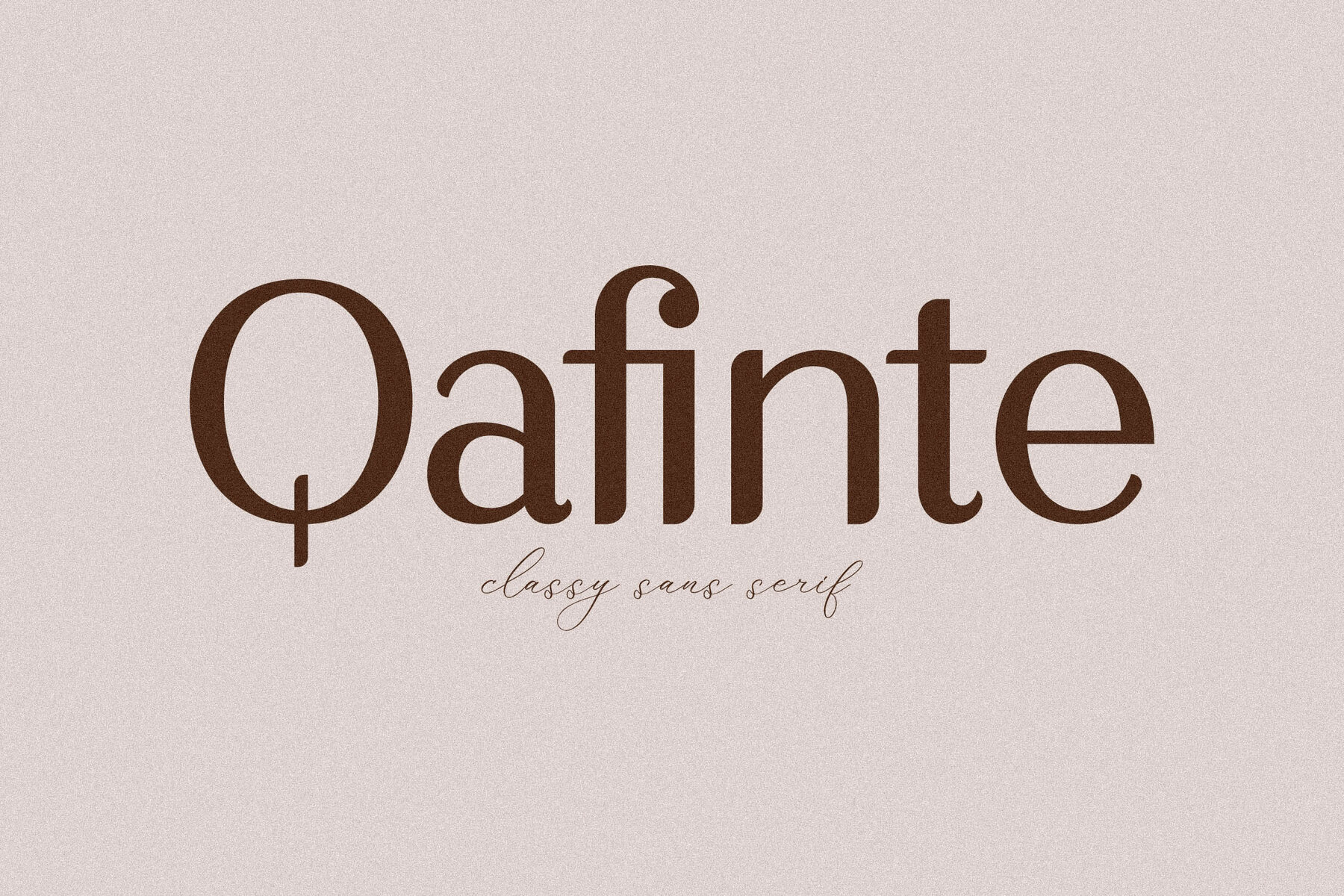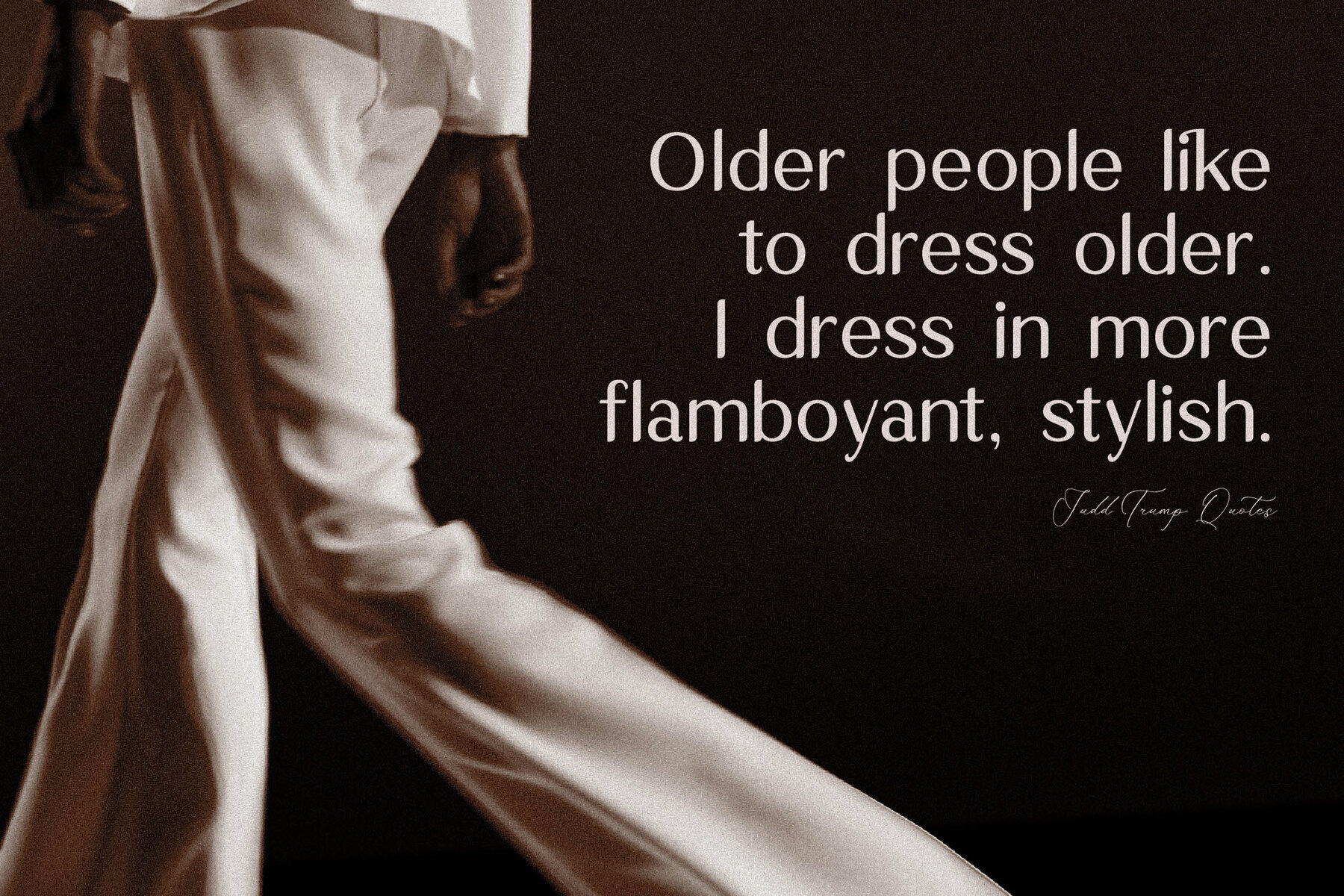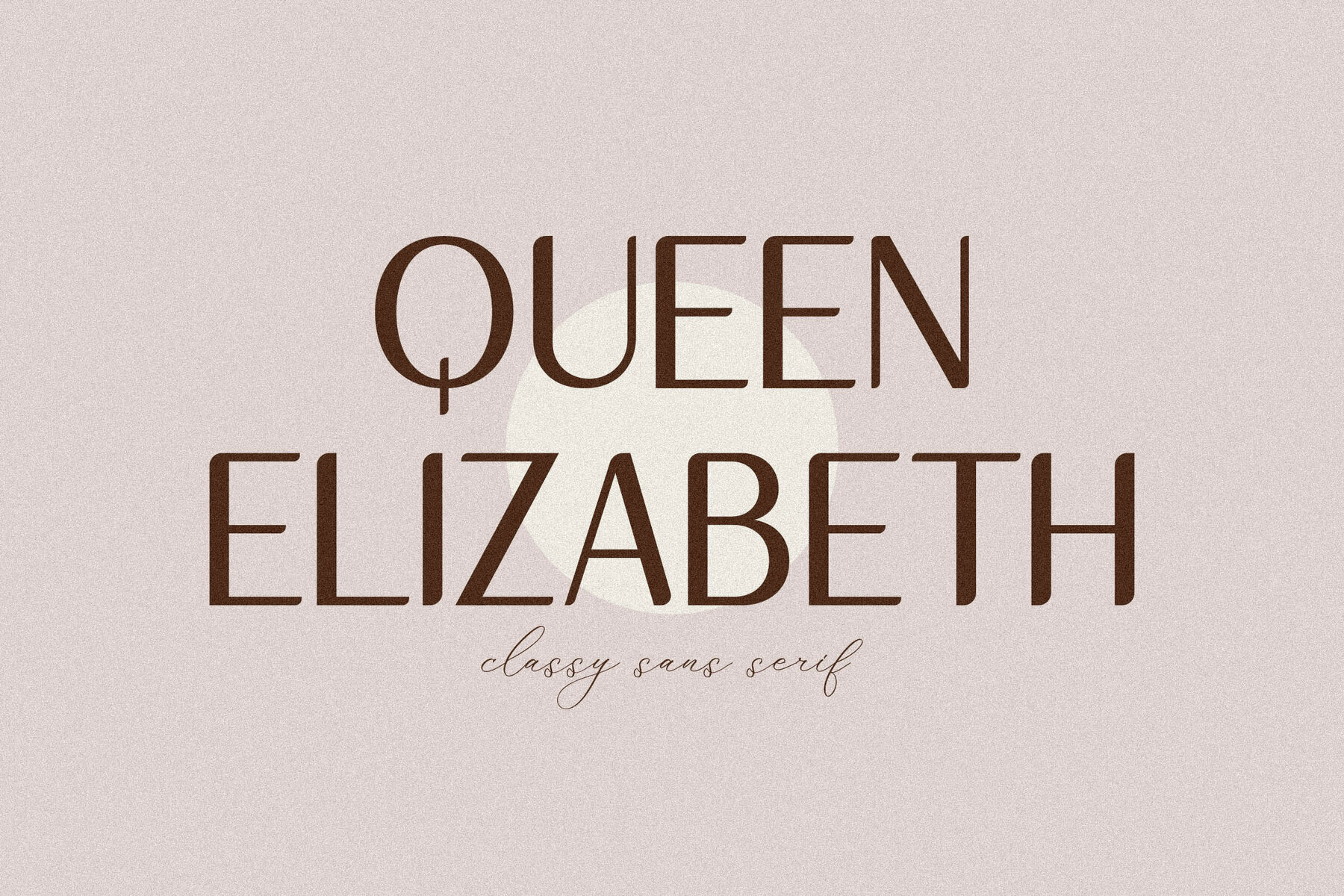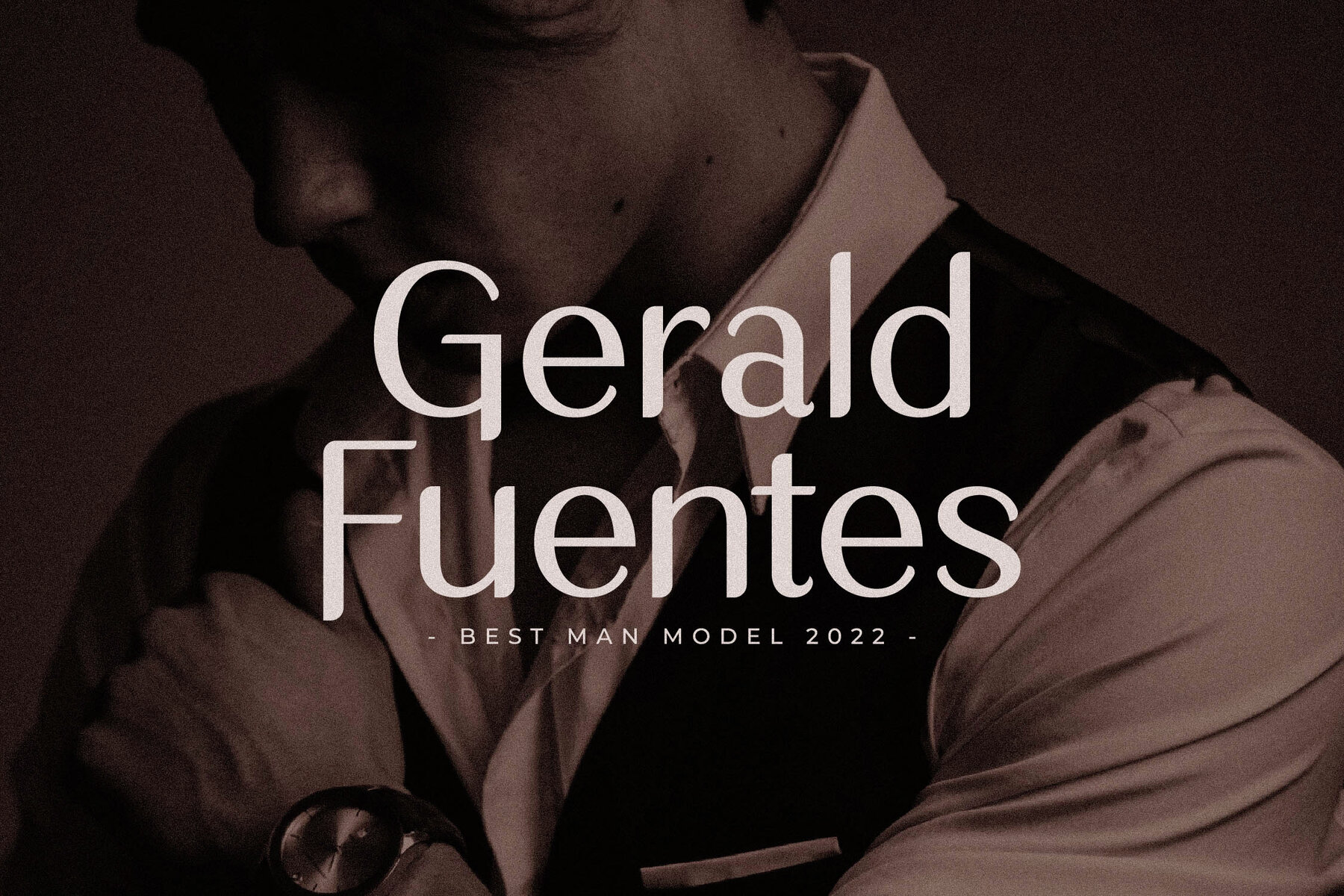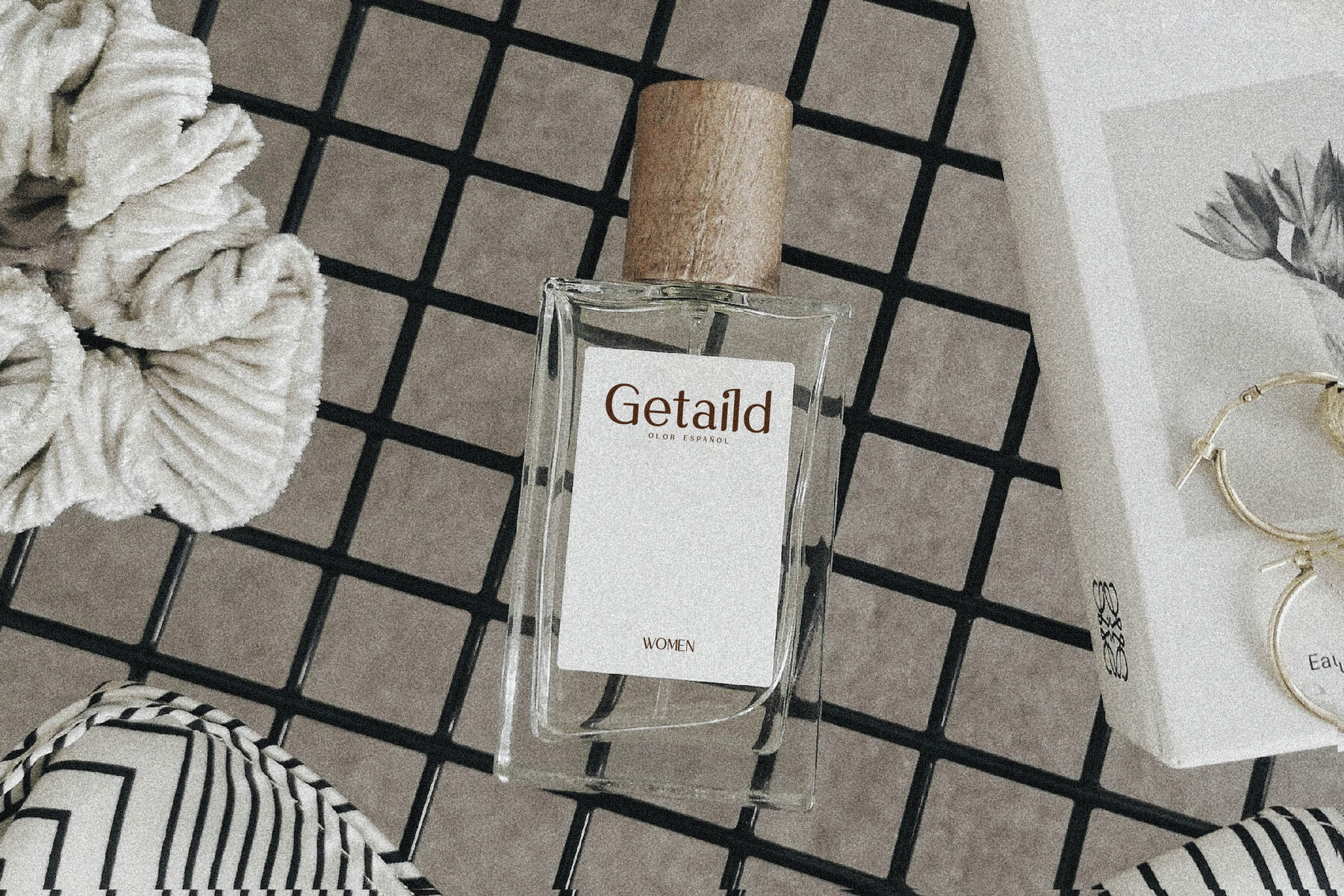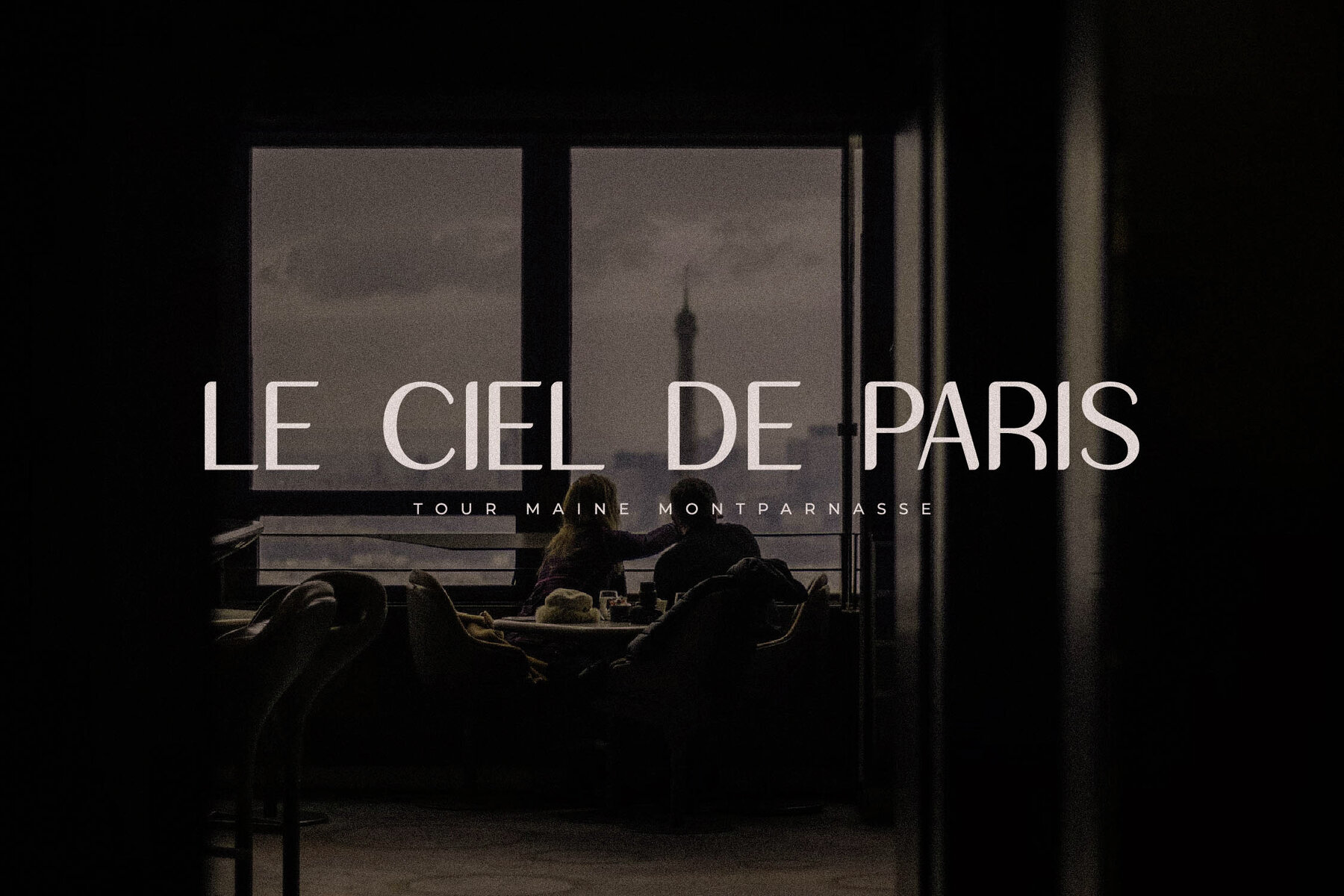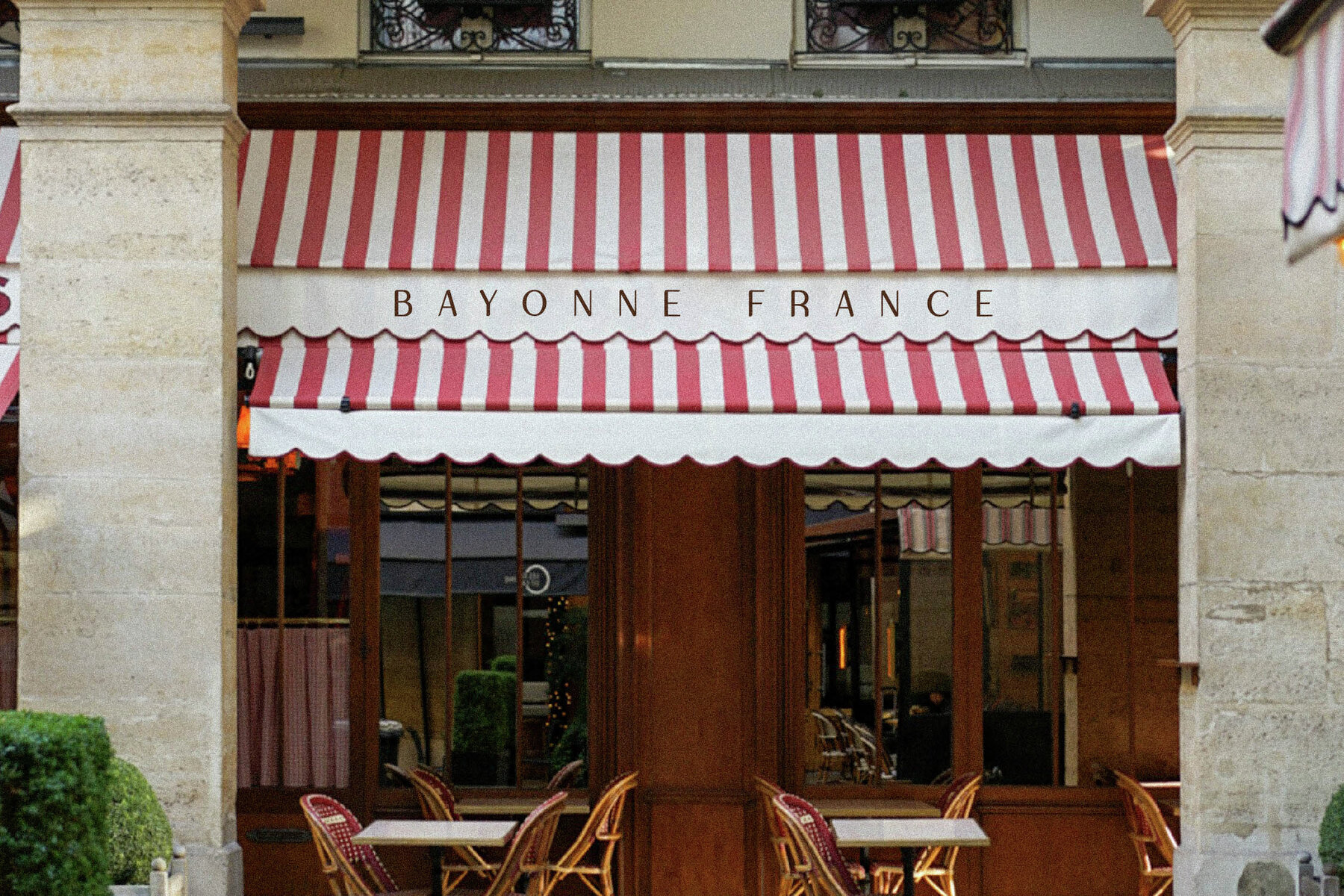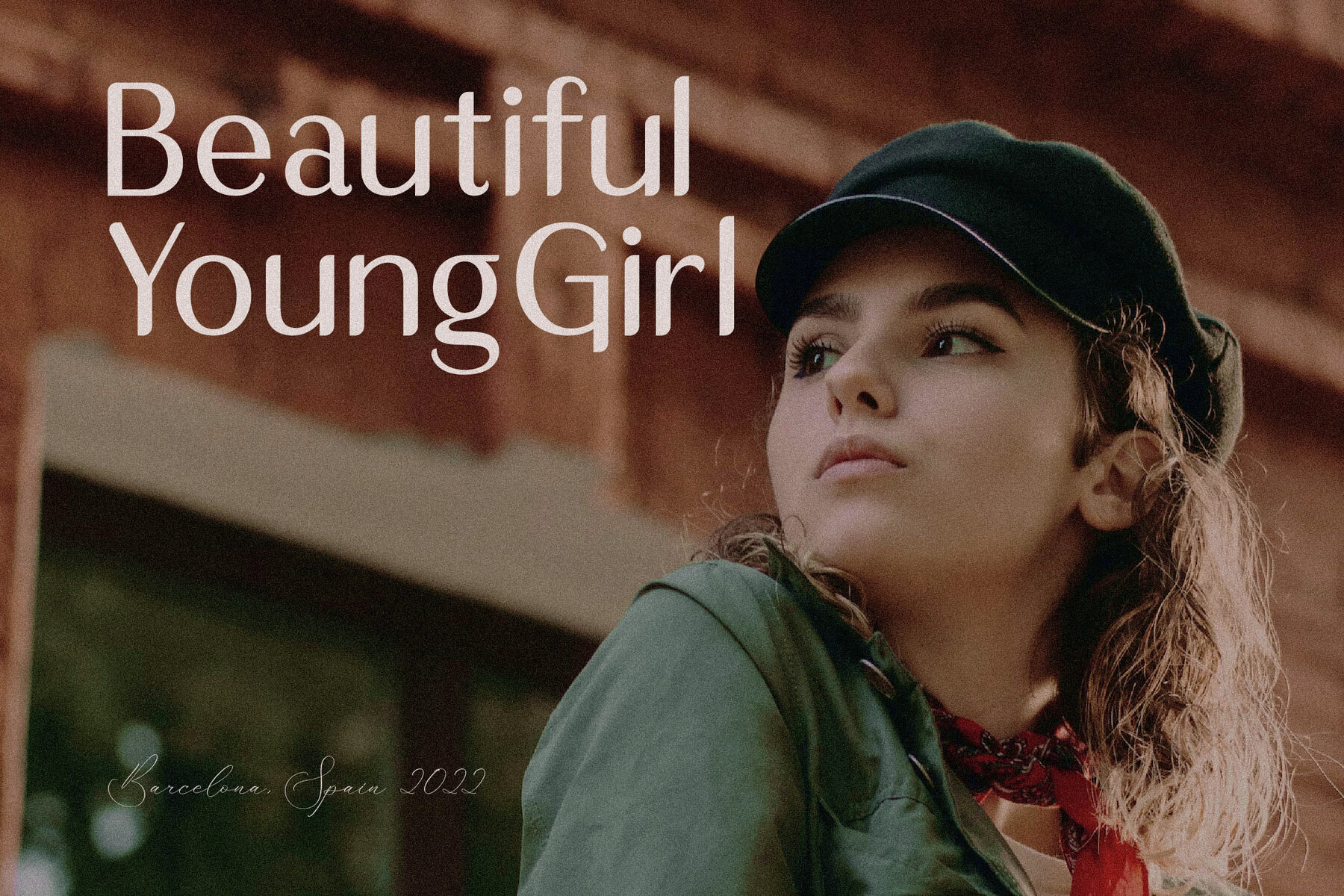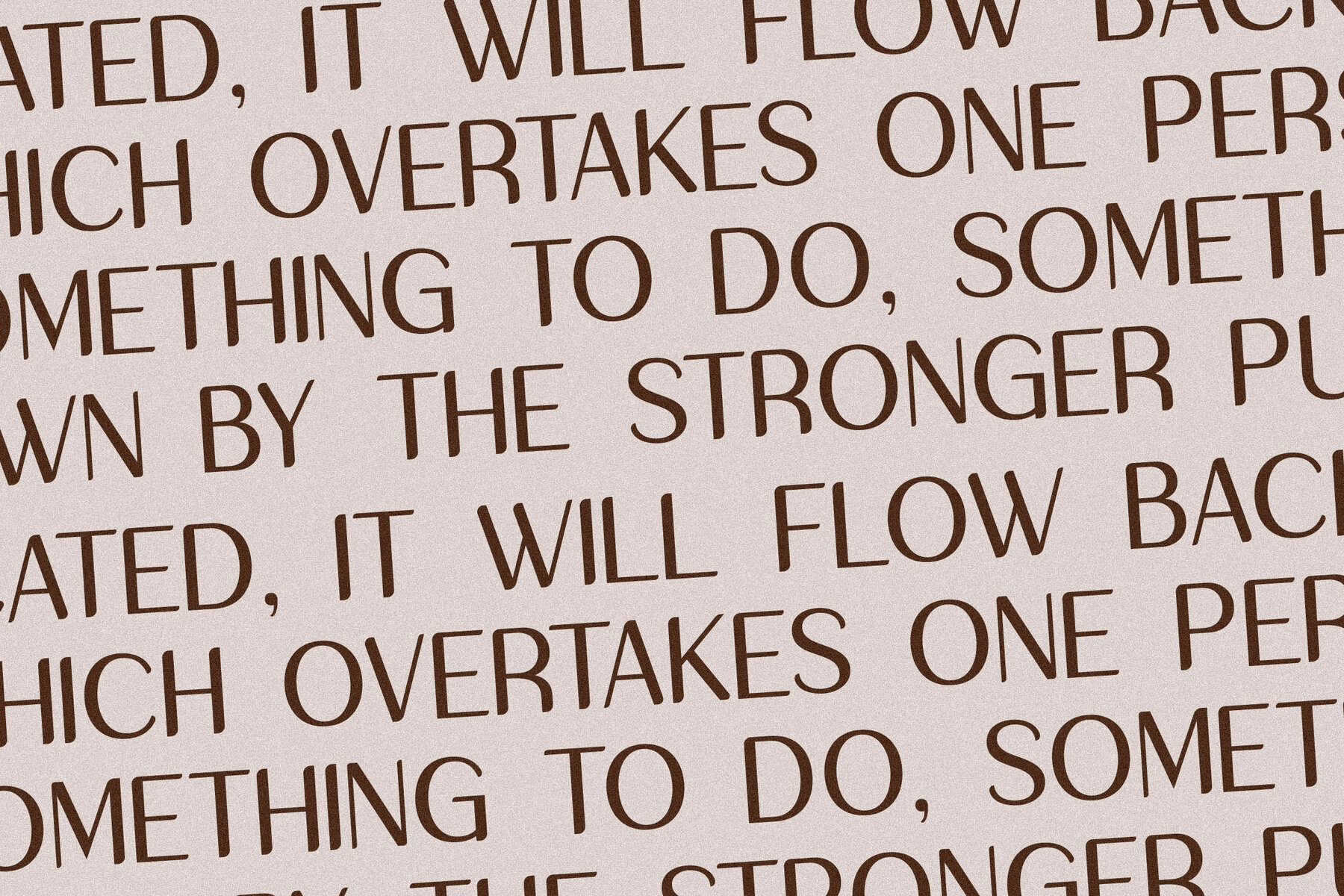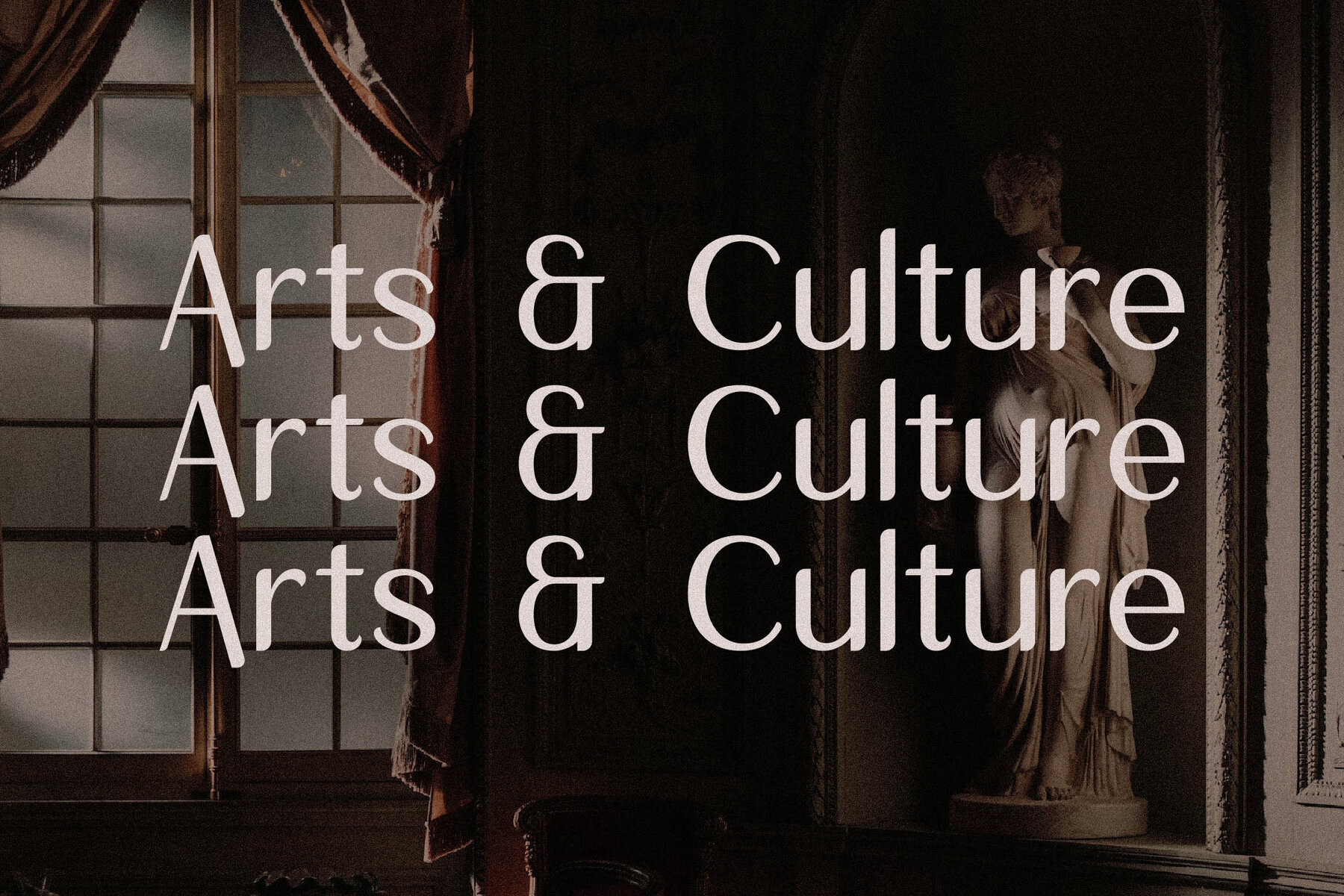
Qafinte Font
Introducing Qafinte Typeface, an exquisite serif font crafted by Storytype Studio. With its unique blend of modern and classic aesthetics, Qafinte is your ideal choice for creating luxurious logos, captivating book and movie titles, and stylish fashion branding. It also excels in editorial layouts for magazines, apparel design, and elegant lettering, making it an essential tool for designers. Qafinte Typeface elevates your design projects with its distinctive style and versatile features. It's both a classic and modern choice for a sophisticated look.Qafinte Typeface: Modern Elegance in Design